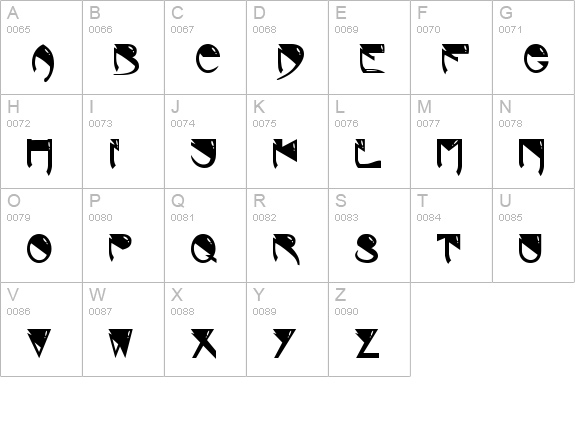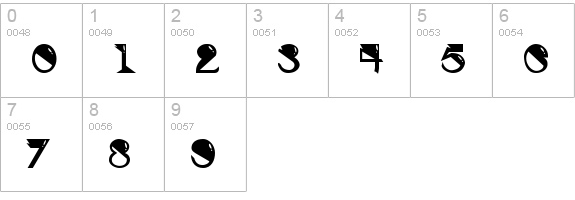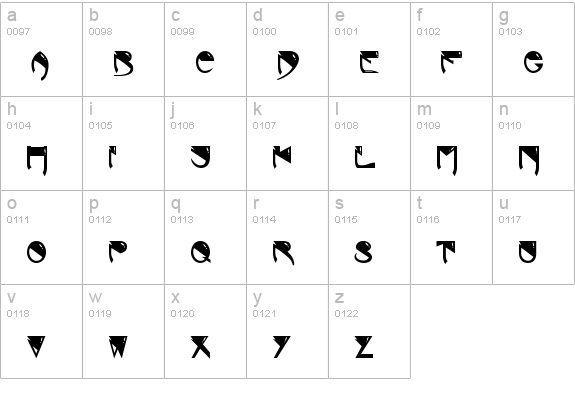
Roger Dean's ABWH Font Details
Roger Dean's ABWH font is a stunning display font that combines elegance and modernity in a unique way. With its intricate design and artistic flair, this font is perfect for making a bold statement in any project. The ABWH font features sleek lines and sharp edges that exude sophistication and creativity. Its versatility allows it to be used for a variety of design purposes, from branding to advertising to artistic projects. The best part about the ABWH font is that it is completely free to download at FontsMarket.com. This means that you can access this beautiful font without any cost, making it a valuable addition to your font collection. Whether you are a designer looking to add a touch of flair to your work or a creative individual wanting to elevate your projects, the ABWH font is a fantastic choice. Download it today and unleash your creativity with this stunning font by Roger Dean.